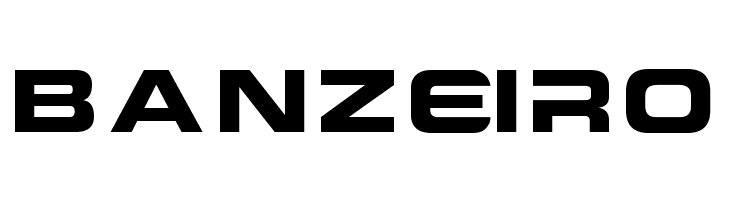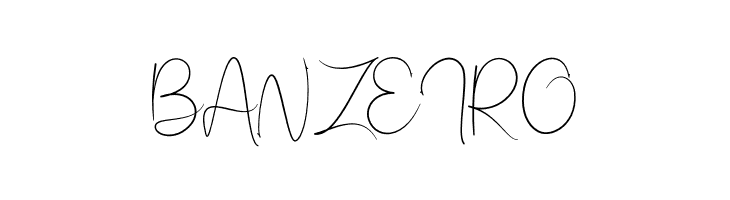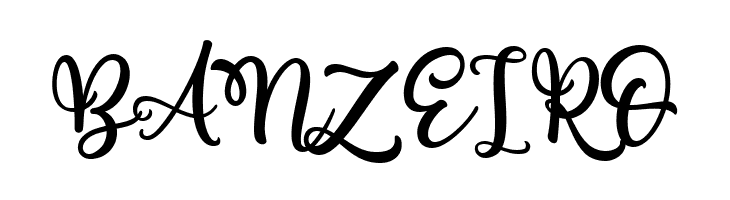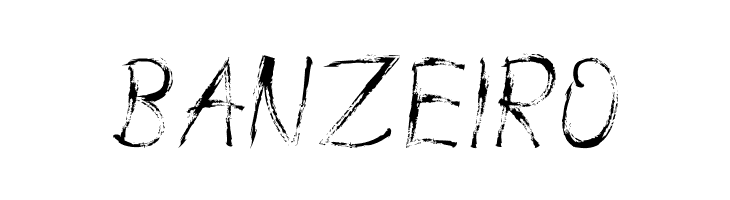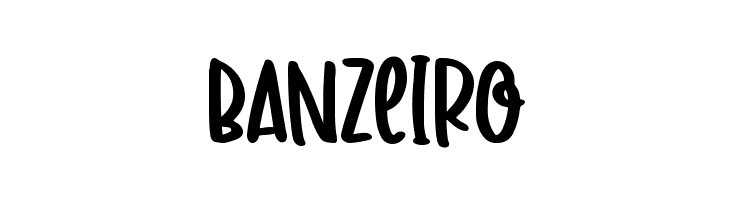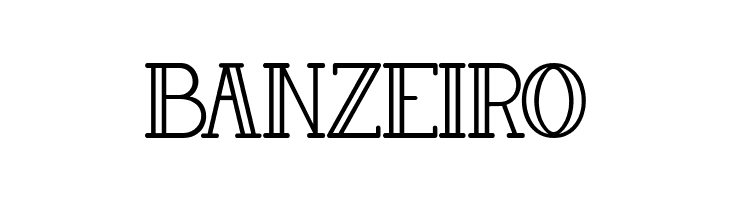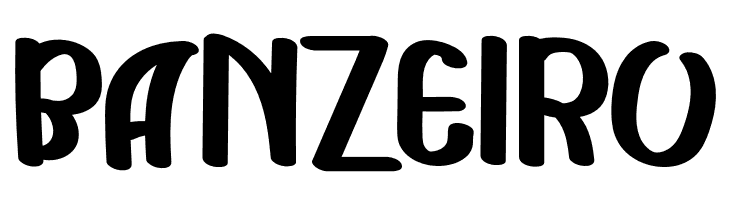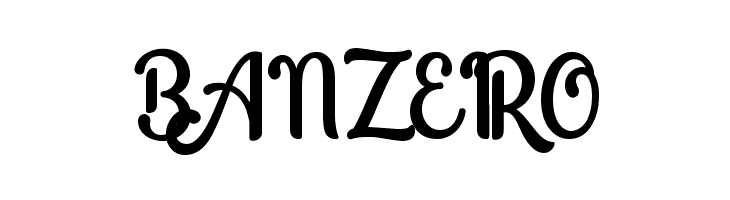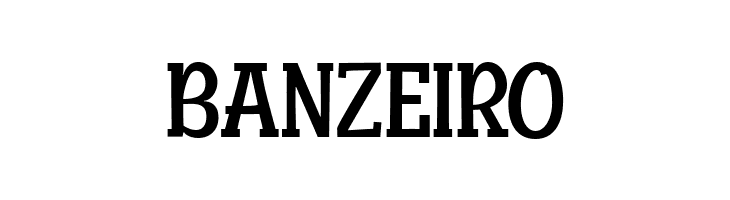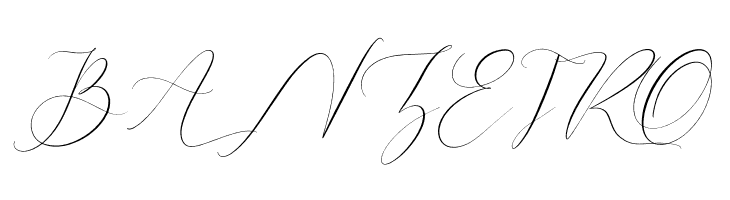
An elegant, cursive handwritten font with smooth, flowing strokes.
A decorative serif font with elegant, rounded terminals and a classic-modern blend.
A bold, playful, hand-drawn font with thick, uneven strokes and a whimsical style.
A bold, futuristic font with geometric shapes and angular style.
A distressed, brush-stroke style font with a dynamic and handcrafted appearance.
A bold, playful handwritten font with thick strokes and rounded edges.
A bold serif font with strong, well-defined characters and a modern classic appeal.
A playful, hand-drawn font with bold, rounded characters and a whimsical style.
A playful, bold font with rounded, thick characters for a fun and approachable style.
A spooky, bone-like font with bold, jagged edges.
A modern, dot-based font with a geometric and digital aesthetic.
An elegant, flowing script font with ornate, cursive letterforms.
A modern, minimalist sans-serif font with tall, narrow characters and consistent stroke width.
A modern, thin sans-serif font with a tall, narrow structure and rounded edges.
A modern, sans-serif font with elongated, condensed characters and uniform stroke thickness.
Tall, thin, handwritten script with playful character.
An elegant, flowing script font with ornate, cursive letterforms.
An elegant, cursive font with fluid strokes and a sophisticated style.
A playful, flowing script font with a handwritten style.
A dynamic handwritten font with fluid, expressive letterforms and playful strokes.
A delicate and elegant handwritten font with flowing, interconnected letterforms.
Distressed slab serif with bold, vintage, and rugged style.
A playful, handwritten font with tall, narrow letters and a quirky style.
A bold, blackletter-style font with intricate detailing and strong vertical strokes.
A delicate and flowing script font with elegant, whimsical curves.
An elegant, flowing script font with delicate, thin strokes and intricate swashes.
A graceful, flowing script font with high contrast and elegant curves.
A casual, handwritten font with a flowing, cursive style.
A futuristic, angular font with a bold, sci-fi aesthetic.
A bold, blocky font with uniform stroke width, ideal for impactful designs.
A modern, artistic font with elongated, slender characters and high contrast.
A cursive, handwritten font with elegant, flowing curves and a bold presence.
A bold, brush-style font with a dynamic and hand-drawn appearance.